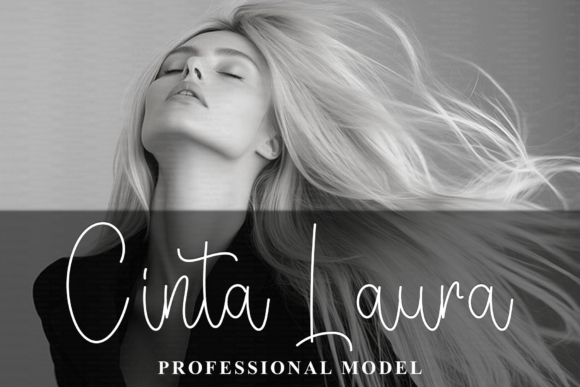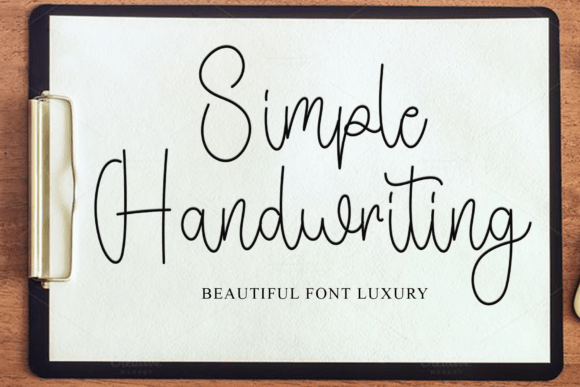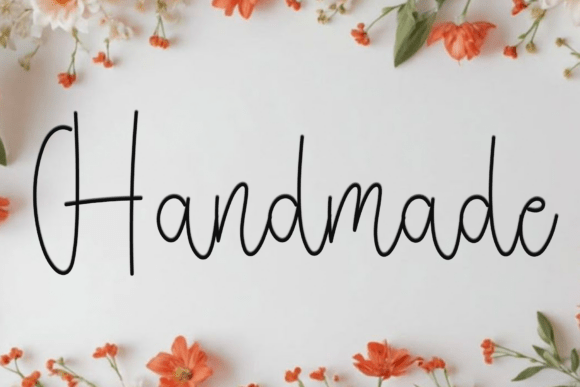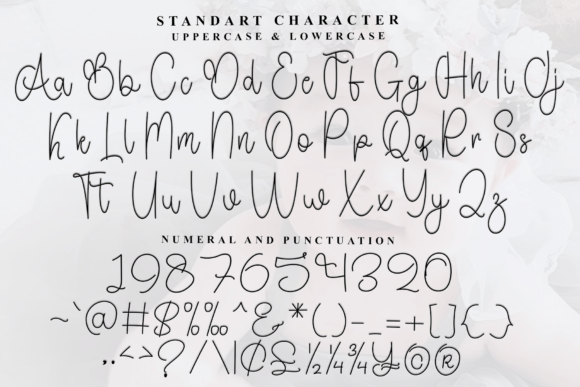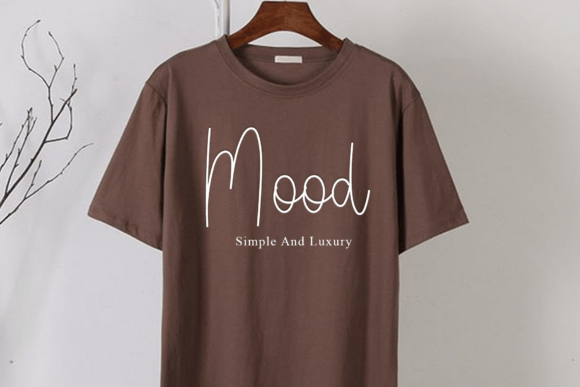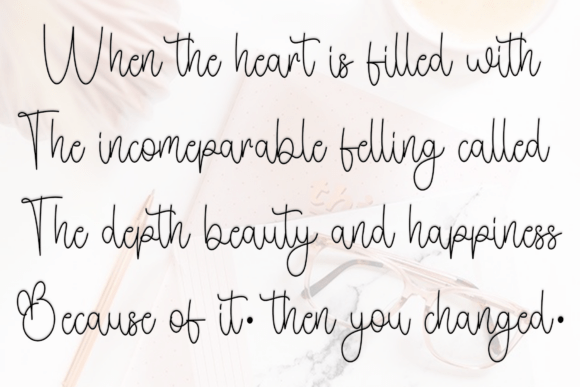
Catalina Handmade Font: Elevate Your Designs with a Touch of Elegance
In the world of design, fonts play a crucial role in conveying the message and aesthetic of a project. Among the myriad of fonts available, the Catalina Handmade Font stands out for its unique, soft touch and eye-catching appeal. Designed to bring a special character to your creative works, this font is not just a typeface but a statement piece that can elevate your designs to new heights.
The Unique Charm of Catalina Handmade Font
Catalina Handmade is a beautiful, meticulously crafted font that boasts distinctive strokes, giving it a special character that is hard to find in other typefaces. Its handmade quality lends a personal touch to any design project, making it perfect for crafts, artistic endeavors, and other creative works. The font’s versatility is one of its most compelling features, allowing it to be used across various platforms and applications.
Key Features of Catalina Handmade Font
• Unique and Soft Touch: The font’s soft and unique strokes set it apart from more conventional typefaces, offering a fresh and distinctive look.
• Versatility: With a wide range of characters, Catalina Handmade can be used for a variety of design projects, from crafting and art to digital and print media.
• Natural Font Style: Its natural, handmade style gives designs an organic feel that appeals to a broad audience across different artistic and creative fields.
Applications of Catalina Handmade Font
The Catalina Handmade Font is incredibly versatile, making it suitable for a wide range of products and design projects. Here are some of the areas where this font can make a significant impact:
• Design Projects: Whether you’re working on a logo, branding materials, or digital content, Catalina Handmade can add a touch of elegance and personality.
• Crafts: For crafters and makers, this font can be used on product labels, packaging, and marketing materials to give their products a handmade, personal feel.
• Artistic and Creative Works: Artists, illustrators, and creatives can use Catalina Handmade to add text to their artworks, providing a unique contrast to their visual creations.
Why Choose Catalina Handmade Font?
In a sea of digital fonts, Catalina Handmade stands out for several reasons:
• Aesthetic Appeal: Its beautiful, handmade aesthetic can enhance your designs, making them more appealing to your audience.
• Emotional Connection: The personal touch of a handmade font can create an emotional connection with your audience, making your designs more relatable and engaging.
• Versatility and Compatibility: The font’s wide range of uses and compatibility with various platforms make it a practical choice for designers and crafters.
Catalina Handmade Font is more than just a typeface; it’s a design element that can transform your projects with its unique, soft touch and eye-catching appeal. Whether you’re a designer, crafter, or artist, this font offers a versatile and compatible solution for adding a personal touch to your work. With its distinctive strokes and natural style, Catalina Handmade is poised to become a favorite in the world of design, enhancing your creations and making them stand out in a crowded marketplace.
Ready to bring a touch of elegance and personality to your designs? Catalina Handmade Font is here to help. Explore its capabilities, and discover how this beautiful, handmade font can elevate your creative projects to new heights. Perfect for a wide range of applications, from crafts and artistic works to digital and print media, Catalina Handmade is your go-to font for making a lasting impression.